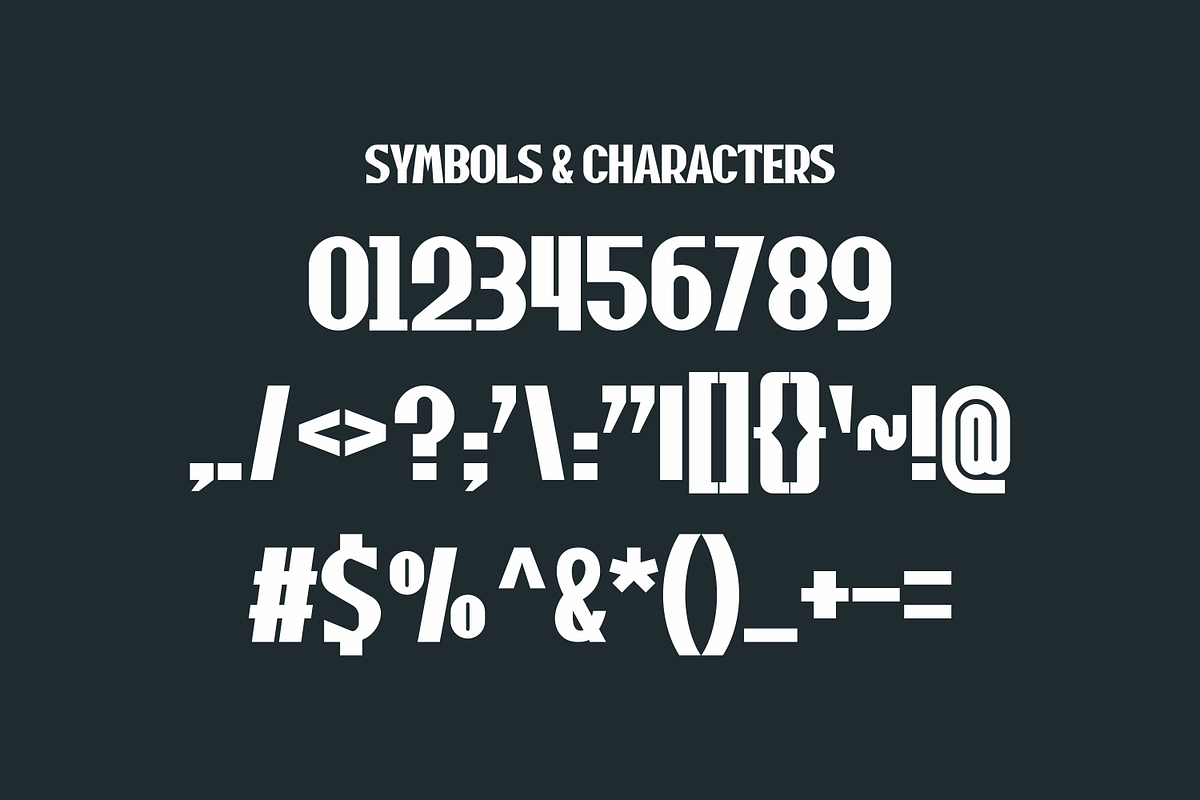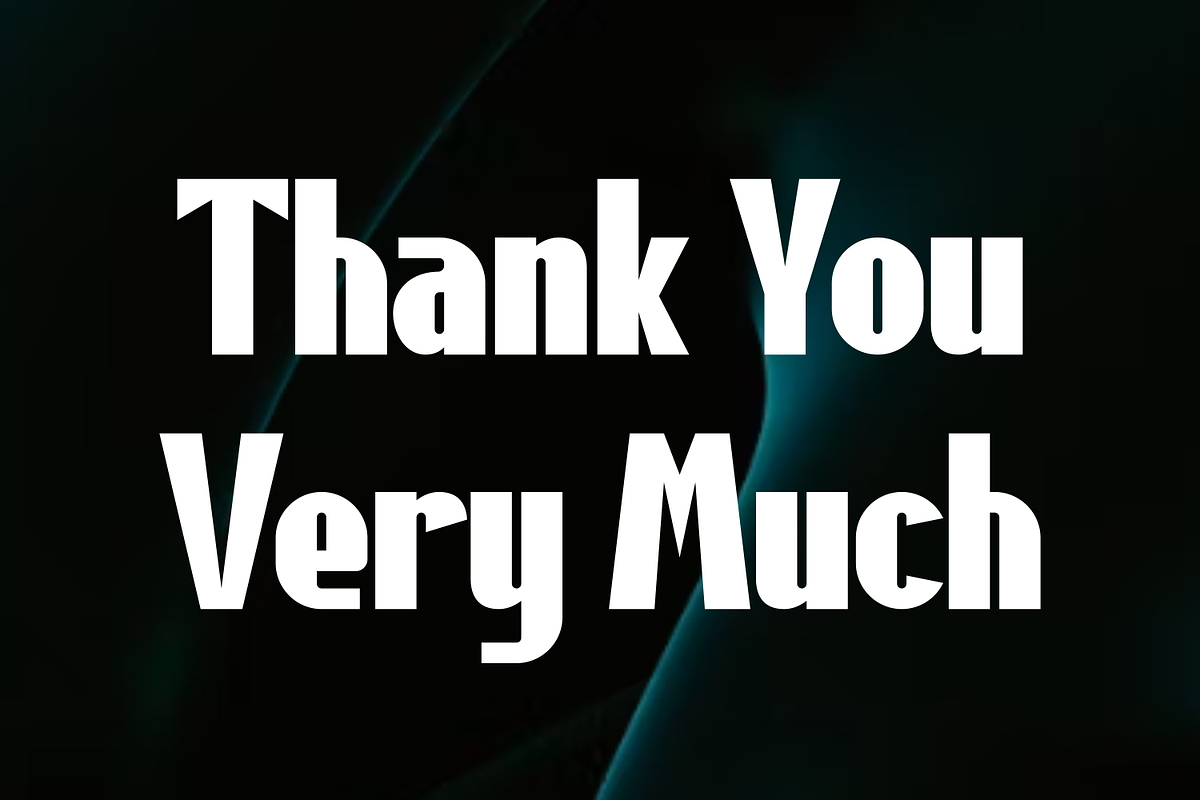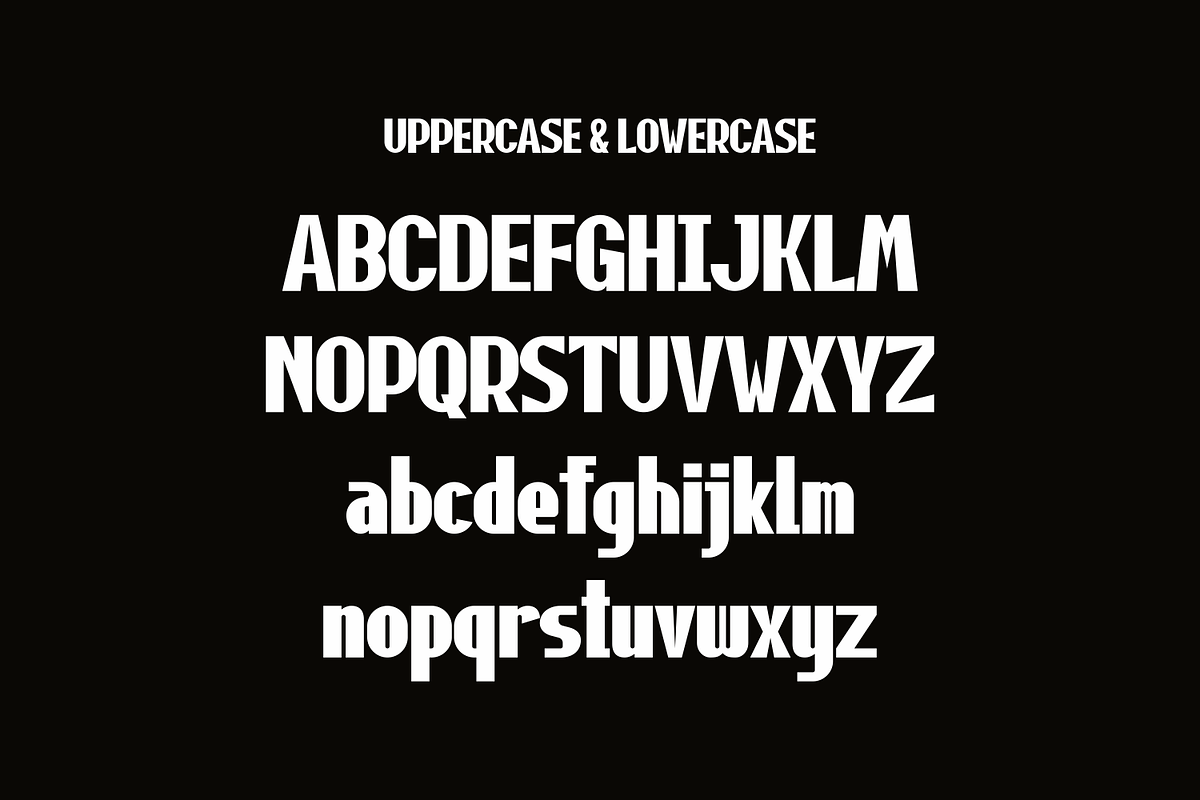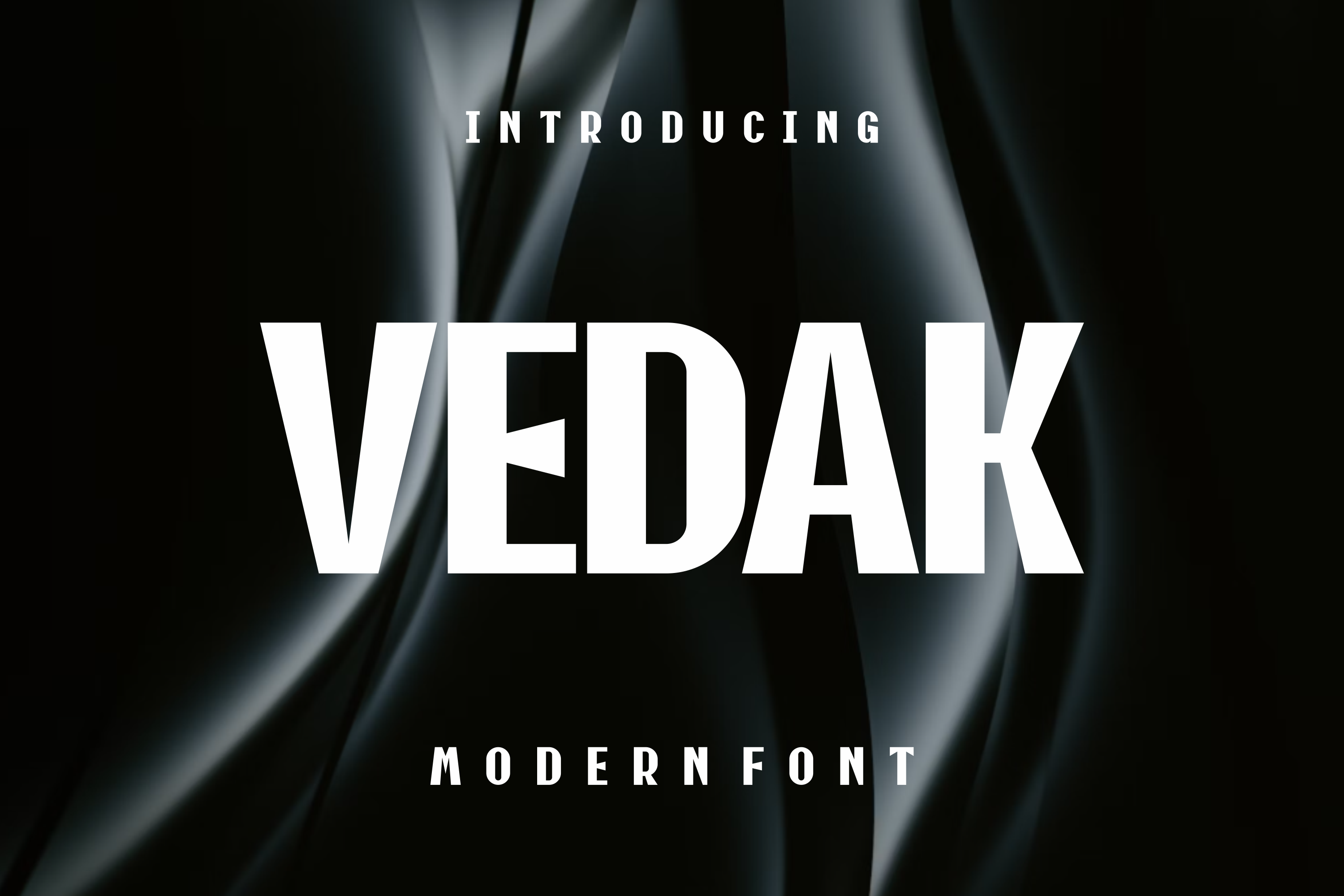
Vedak - Modern Display Font
Vedak - Modern Display Font Perfectly suited on print/screen. it’s perfect for Branding, name card, poster, logo, magazine, cover, banner, t-shirt and headers, or even large-scale artwork.